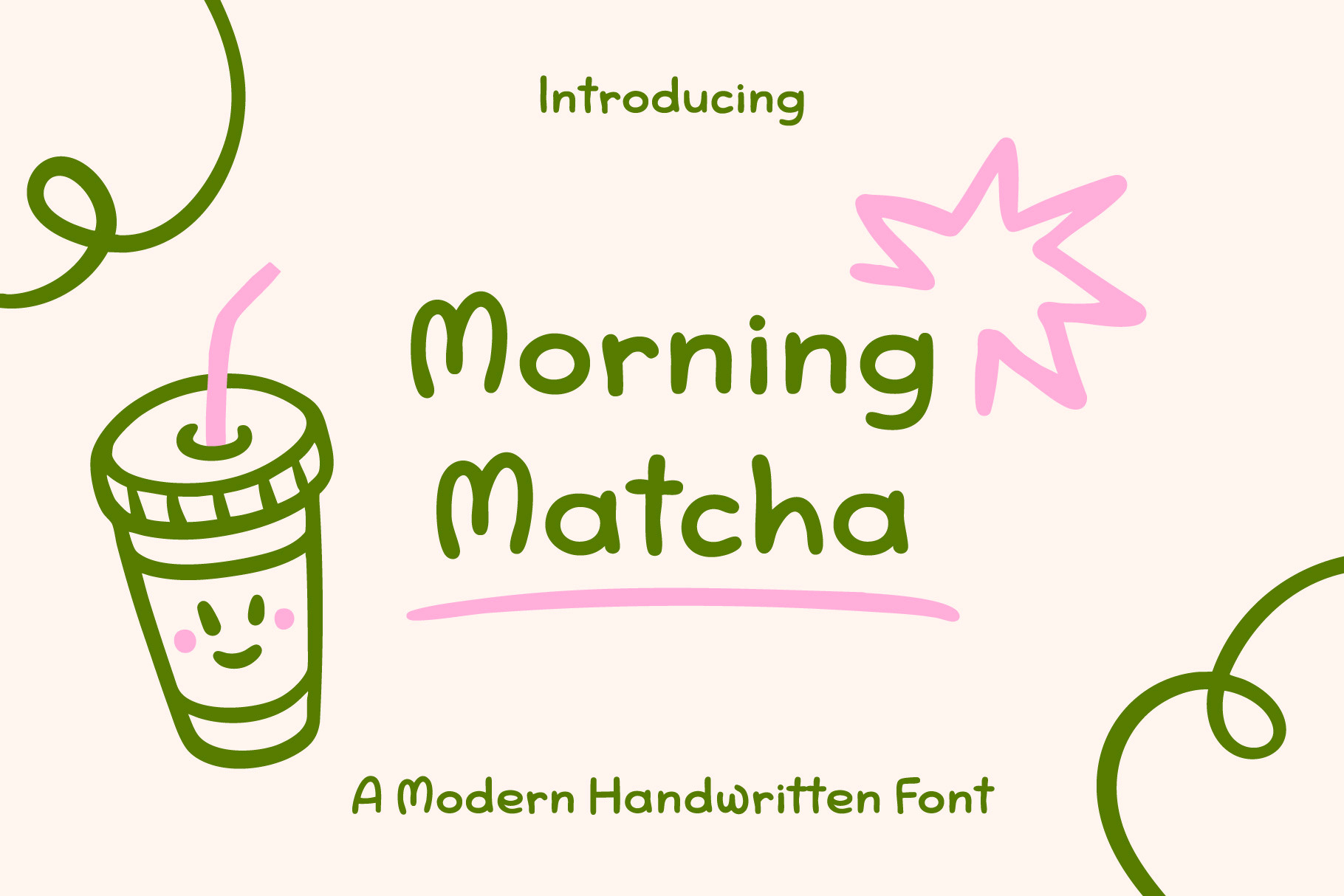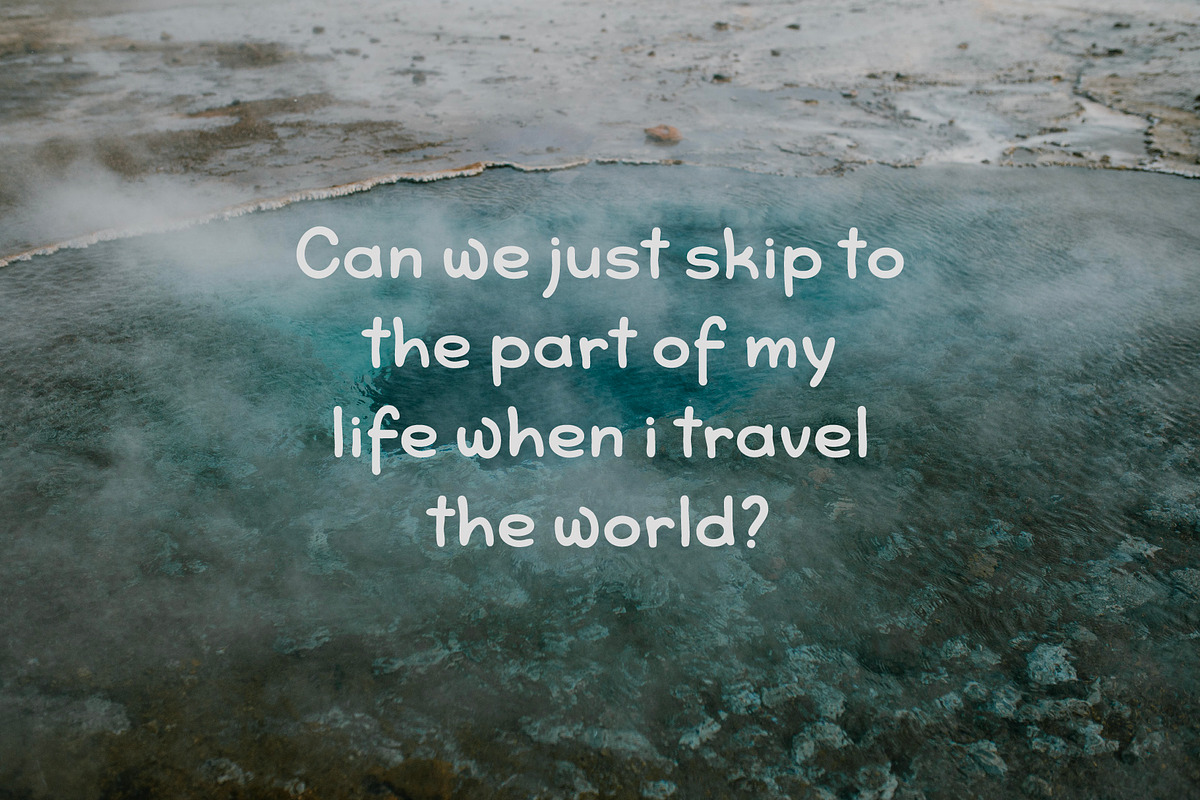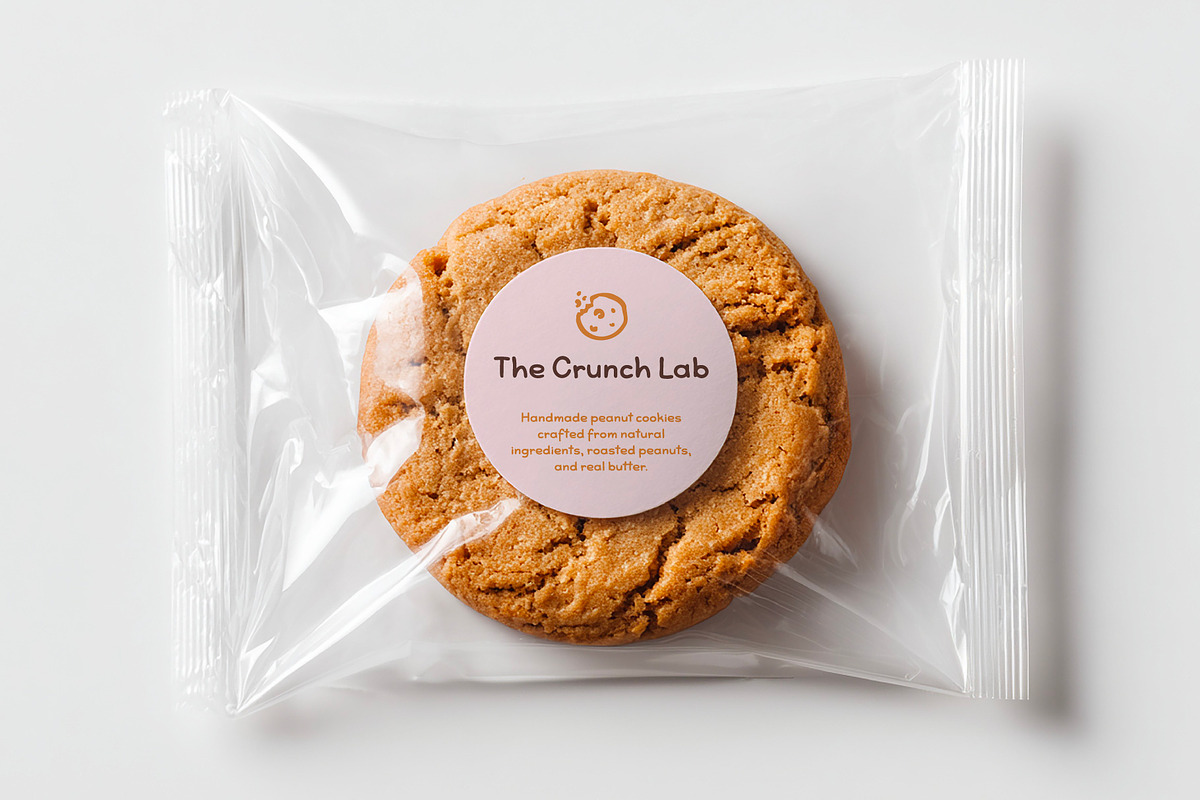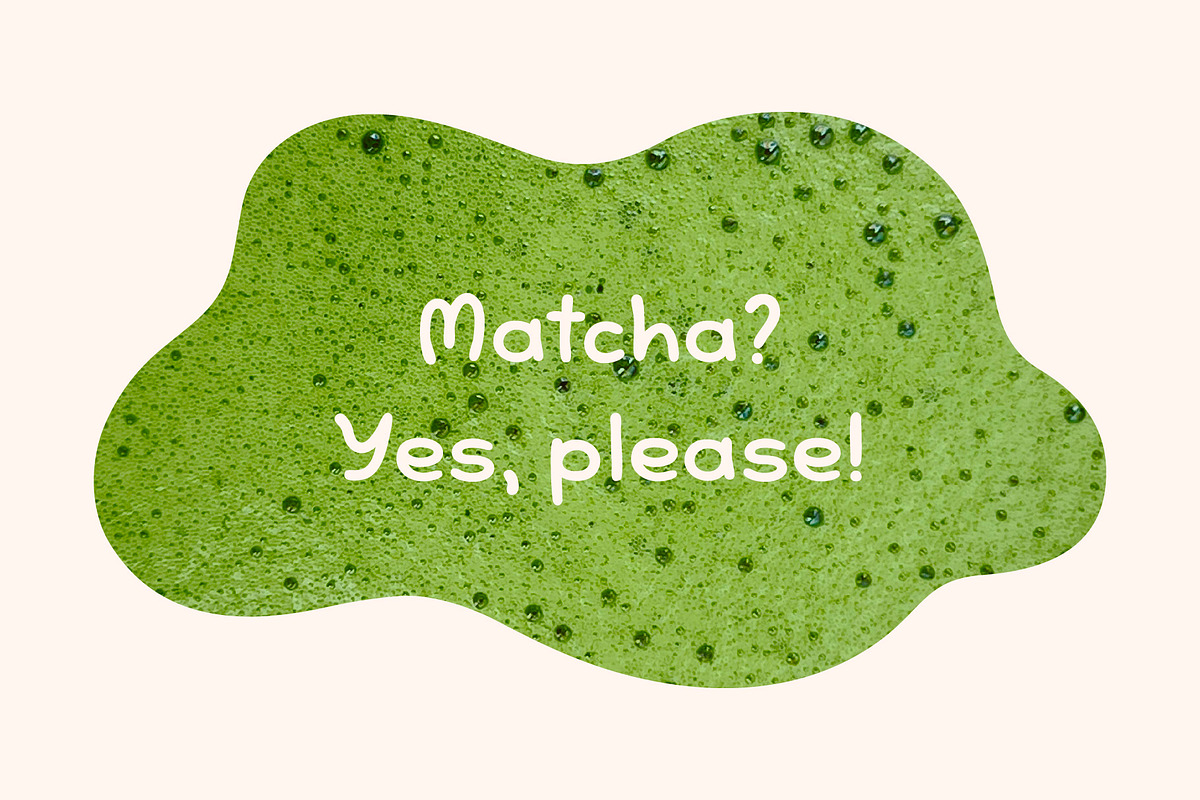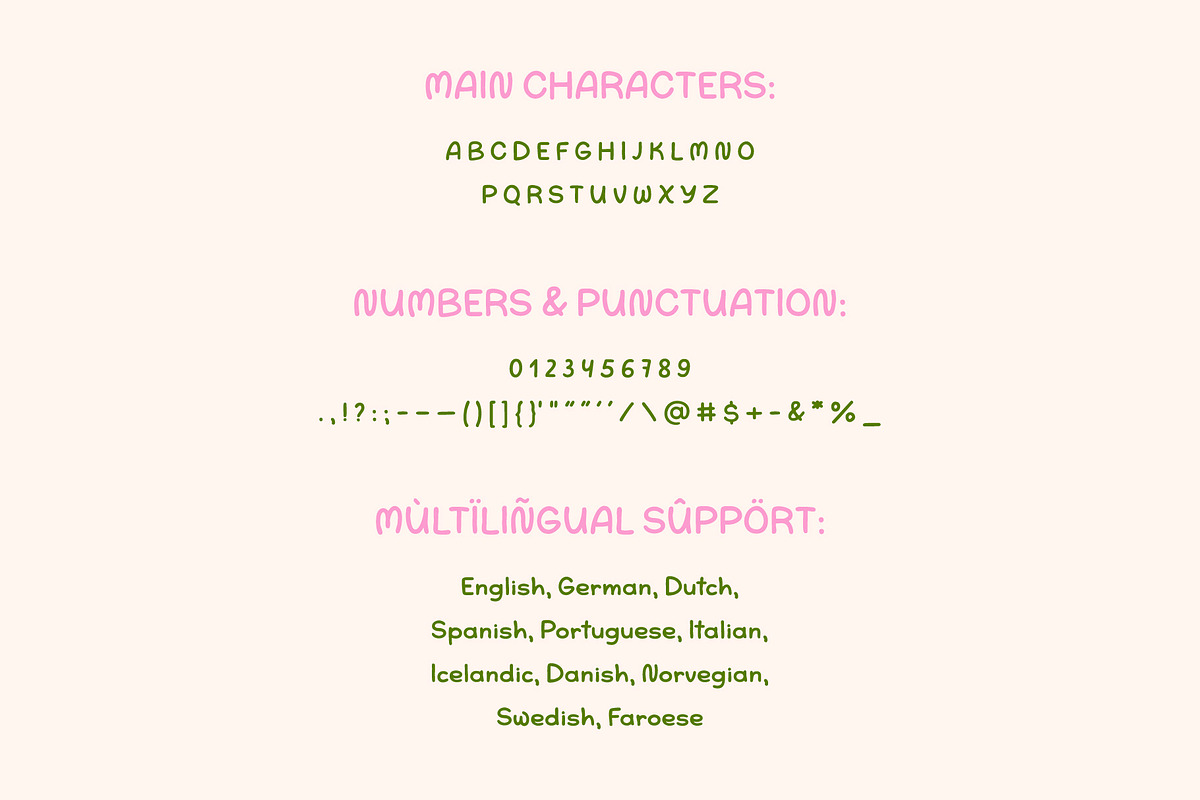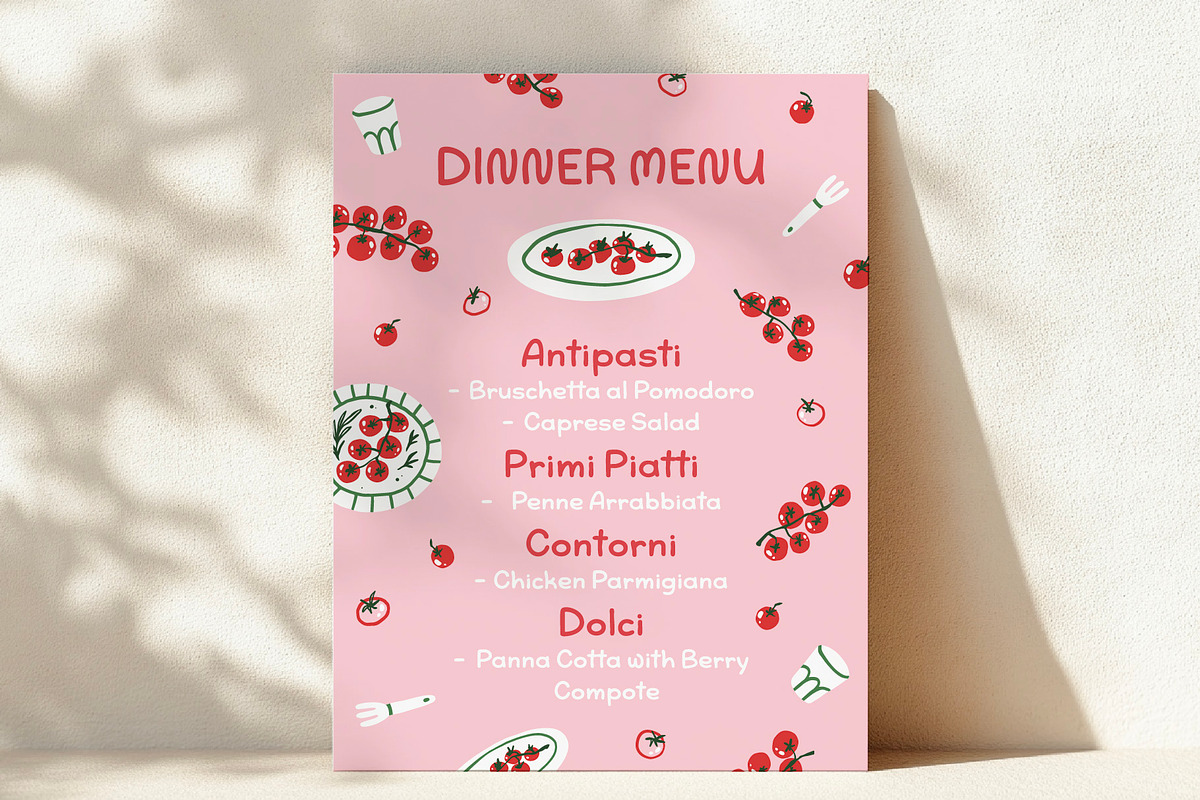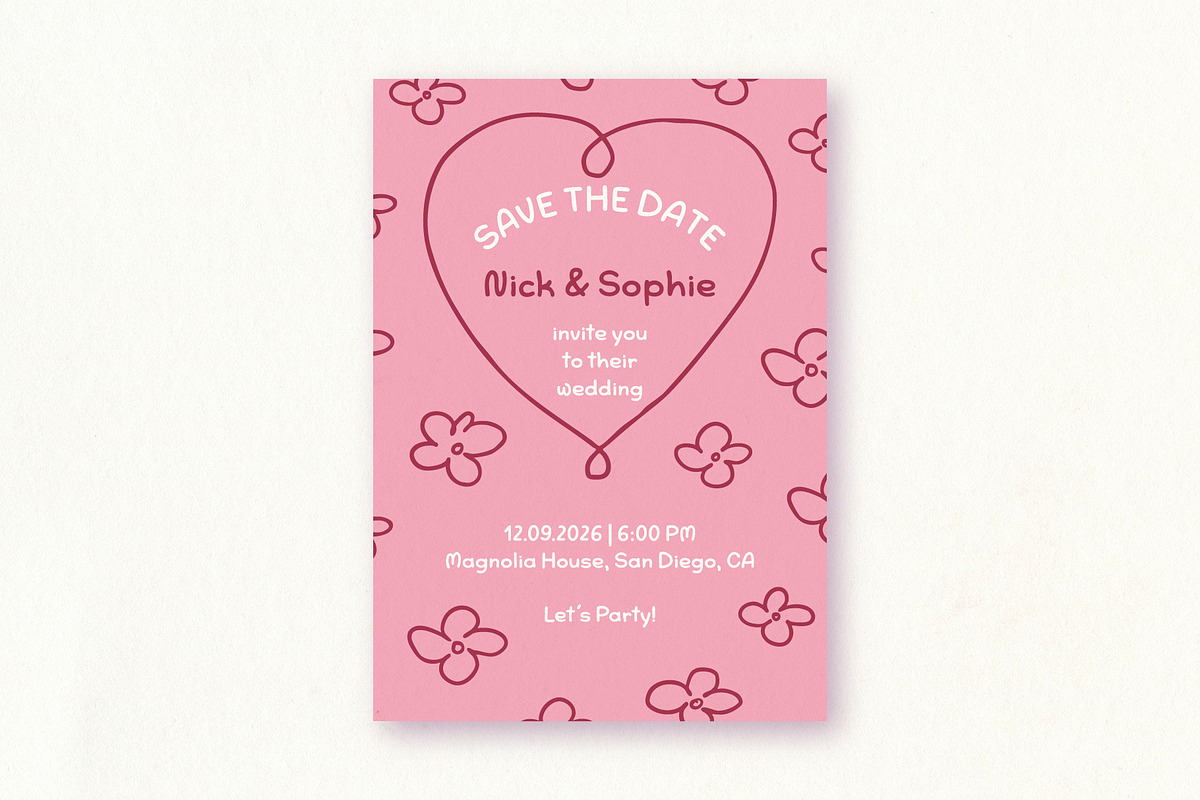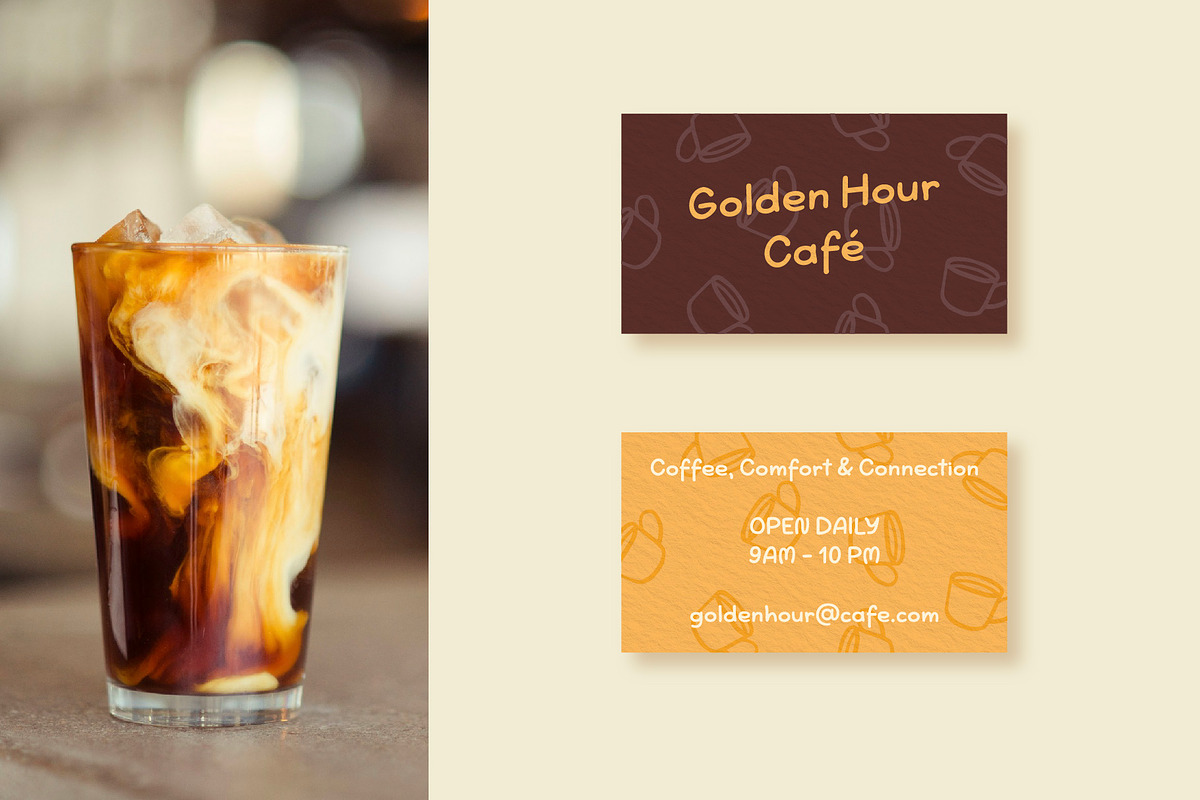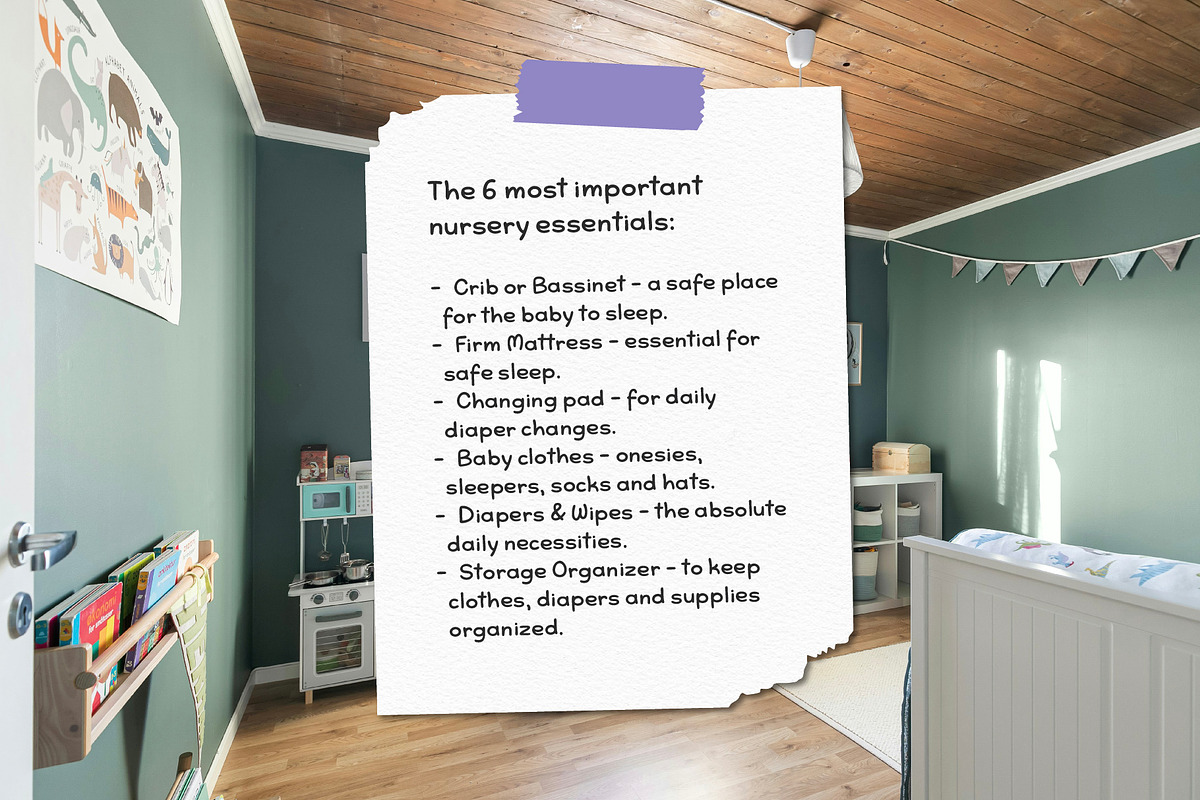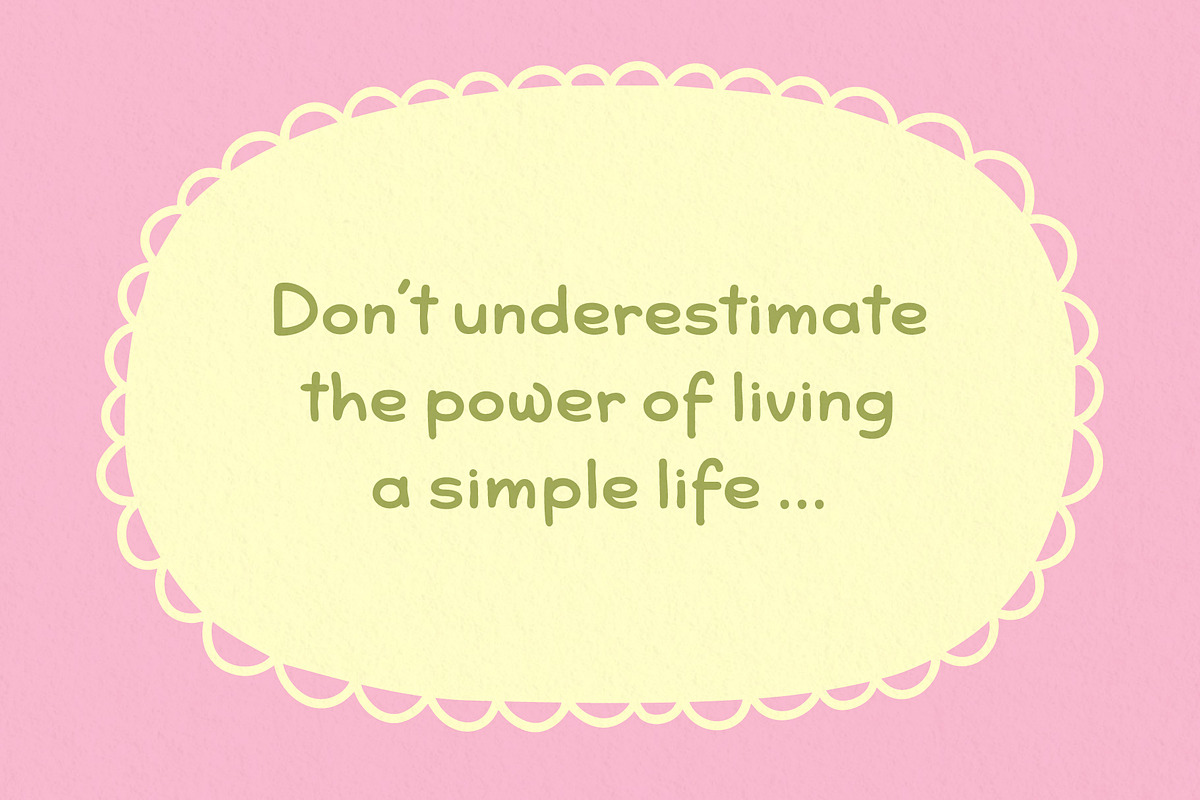
Morning Matcha Handwritten Font
Morning Matcha is a modern playful handwritten font inspired by cozy mornings. Perfect for social media graphics, logos, branding, websites, packaging, invitations, and creative projects, Morning Matcha combines a casual handwritten feel with a clean contemporary style. Available in multiple formats (.otf, .woff2, .ttf) Multilingual support for Basic Latin and Western European languages (English, German, Dutch, Spanish, Portuguese, Italian, Icelandic, Danish, Norvegian, Swedish, Faroese).